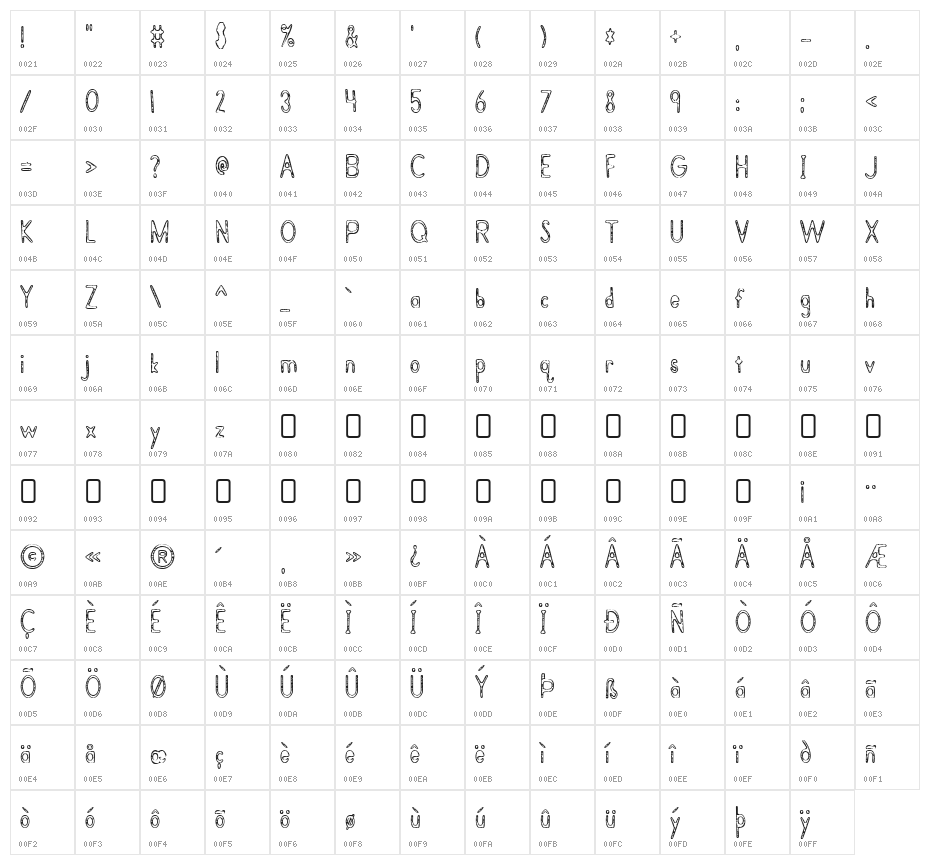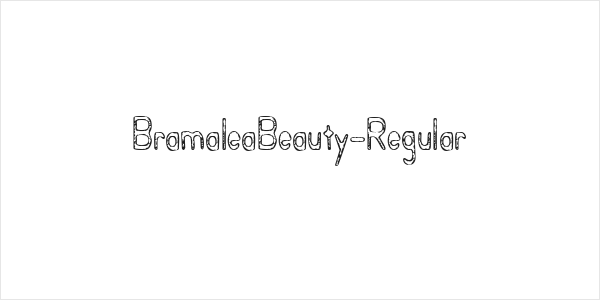
BramaleaBeauty-Regular Font
BramaleaBeauty-Regular Description
This font features a playful and decorative style with a hand-drawn appearance. Each character is outlined with a textured, sketch-like quality, giving it a unique and artistic flair. The uppercase and lowercase letters maintain a consistent style, with rounded edges and a slightly irregular form that adds to its charm. The numerals and special characters follow the same design, ensuring a cohesive look across all elements. This font is perfect for projects that require a whimsical and creative touch, such as children's books, playful branding, or artistic posters.
| Use Case | Headlines, Logos, Artistic projects |
| Proposed Projects | Ideal for children's books, creative branding, artistic posters, and playful designs. |